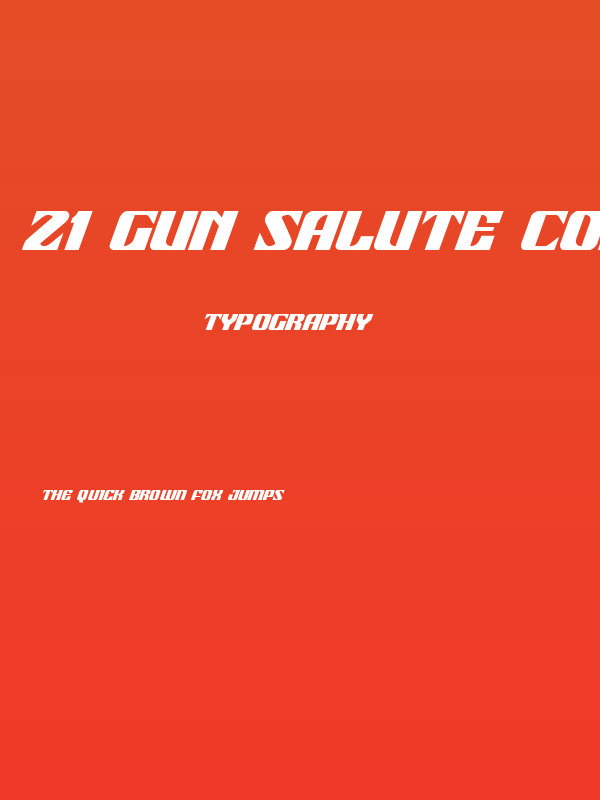
21 Gun Salute Condensed Italic Font
This font features a bold, condensed style with an italic slant, giving it a dynamic and energetic appearance. The characters are tightly spaced, enhancing the compact feel of the design. The strokes are thick and consistent, providing a strong visual impact. Its angular and geometric shapes contribute to a modern and assertive look, making it suitable for attention-grabbing headlines and impactful designs. The font includes a full set of uppercase and lowercase letters, numbers, and a variety of special characters, ensuring versatility in various design contexts.
| Proposed Projects | Ideal for sports branding, action movie posters, dynamic advertisements, and bold editorial headlines. |